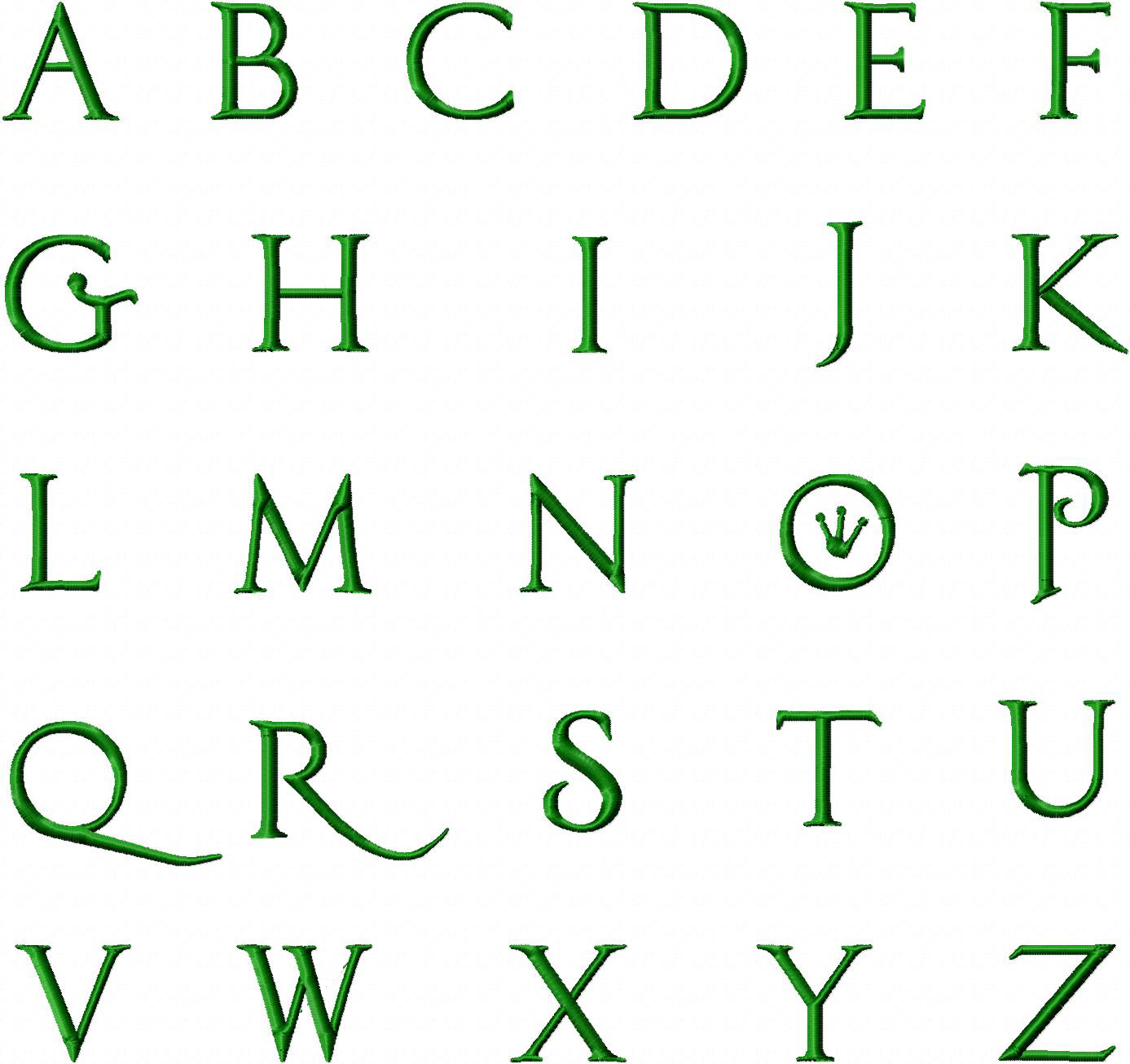
Kiss the Frog Machine Embroidery Font Set Includes 3 Sizes
A majestic font set fit for a prince or princess. Includes 3 sizes
Includes Uppercase Letters, Numbers and Bonus Puncuation in .75″ 1″ & 1.5″.All Made with Satin Stitching.
A majestic font set fit for a prince or princess. Includes 3 sizes
Includes Uppercase Letters, Numbers and Bonus Puncuation in .75" 1" & 1.5".All Made with Satin Stitching.